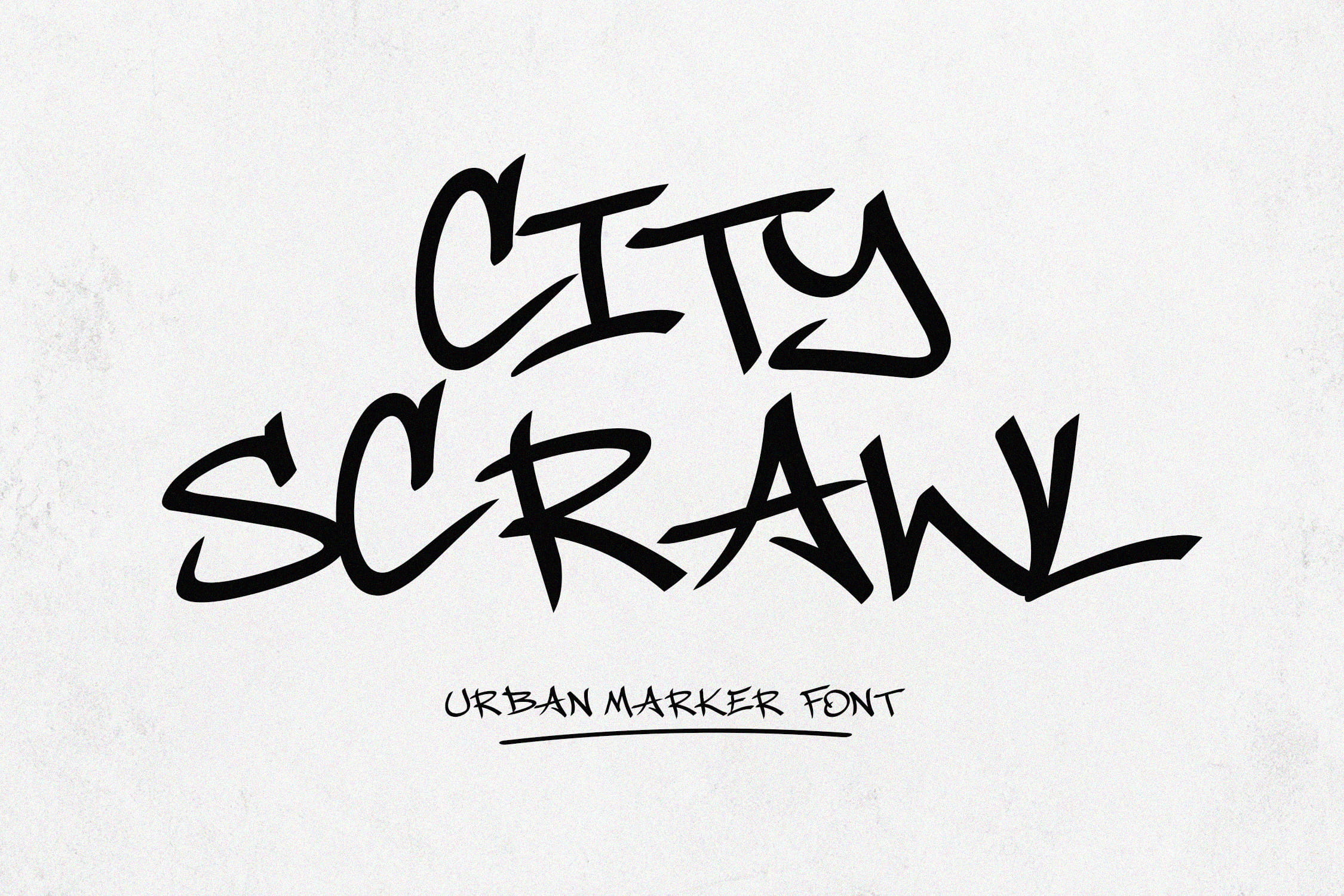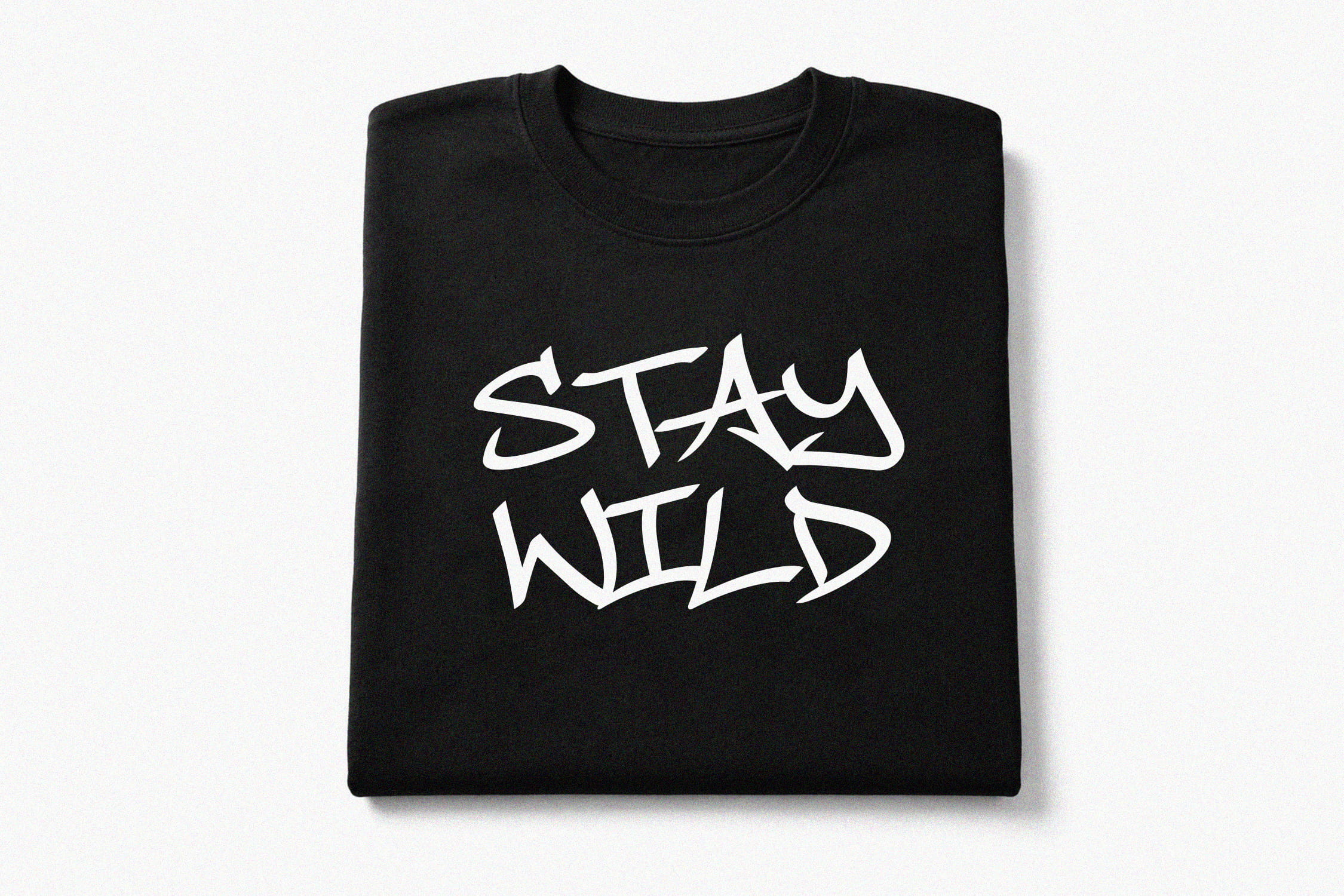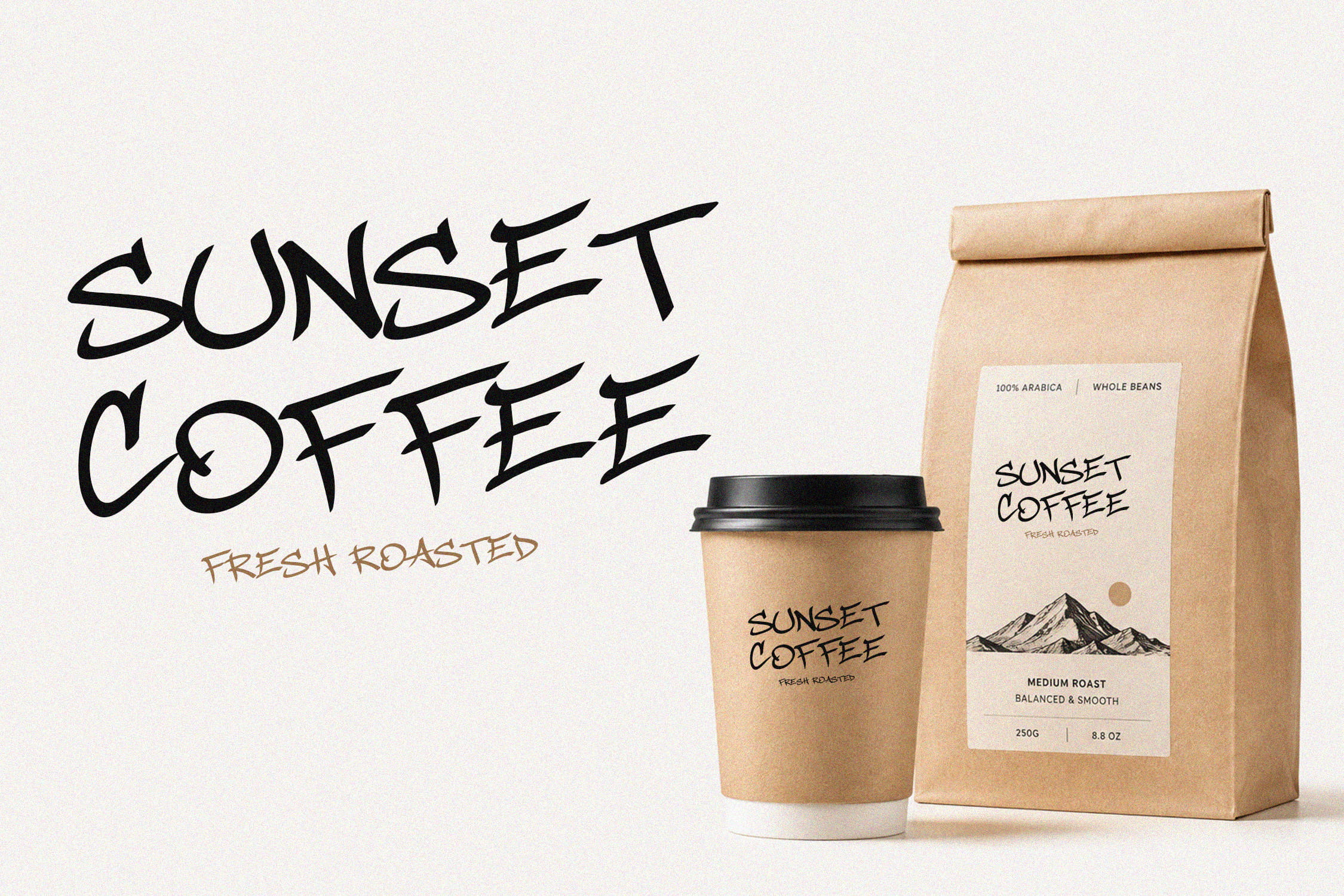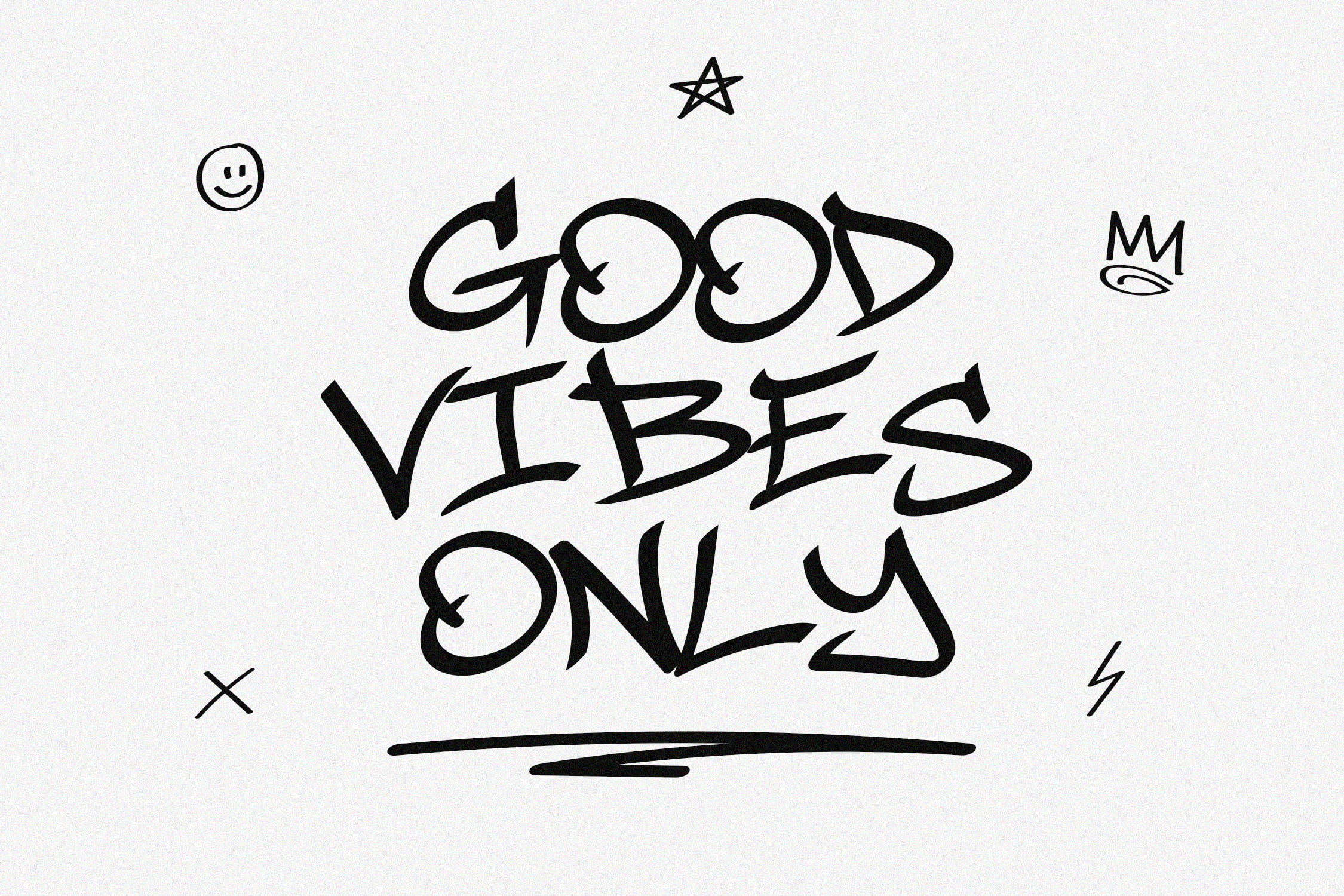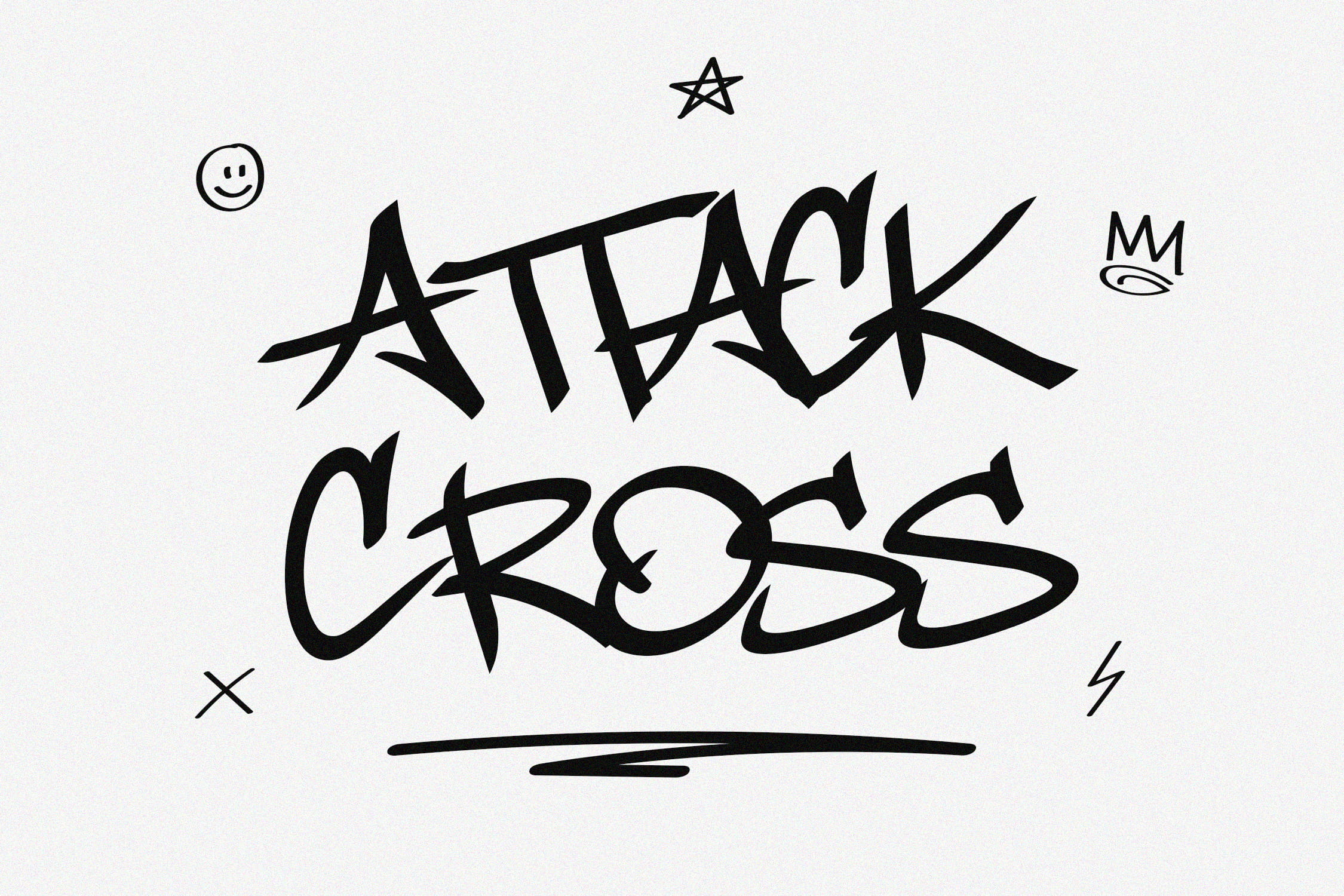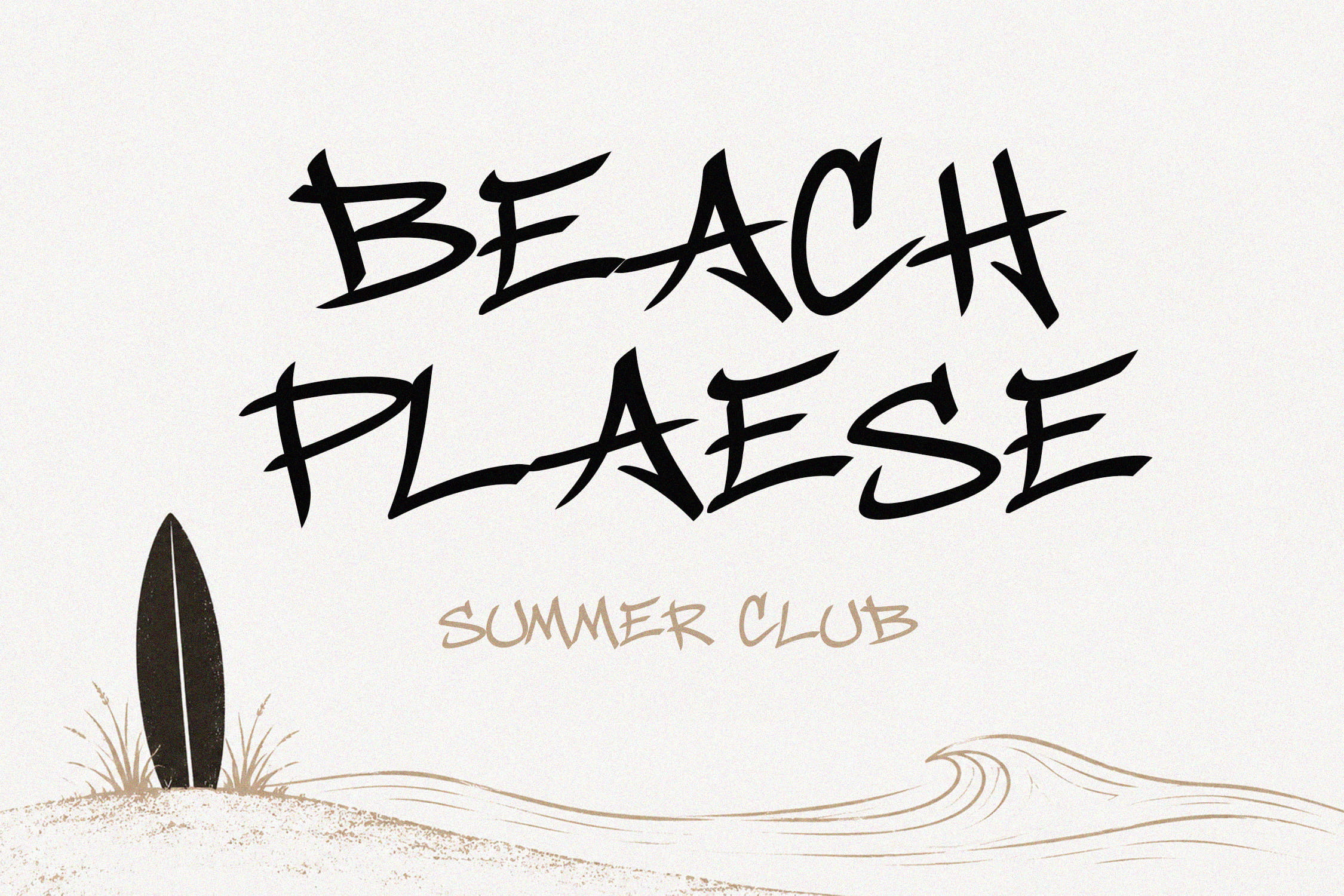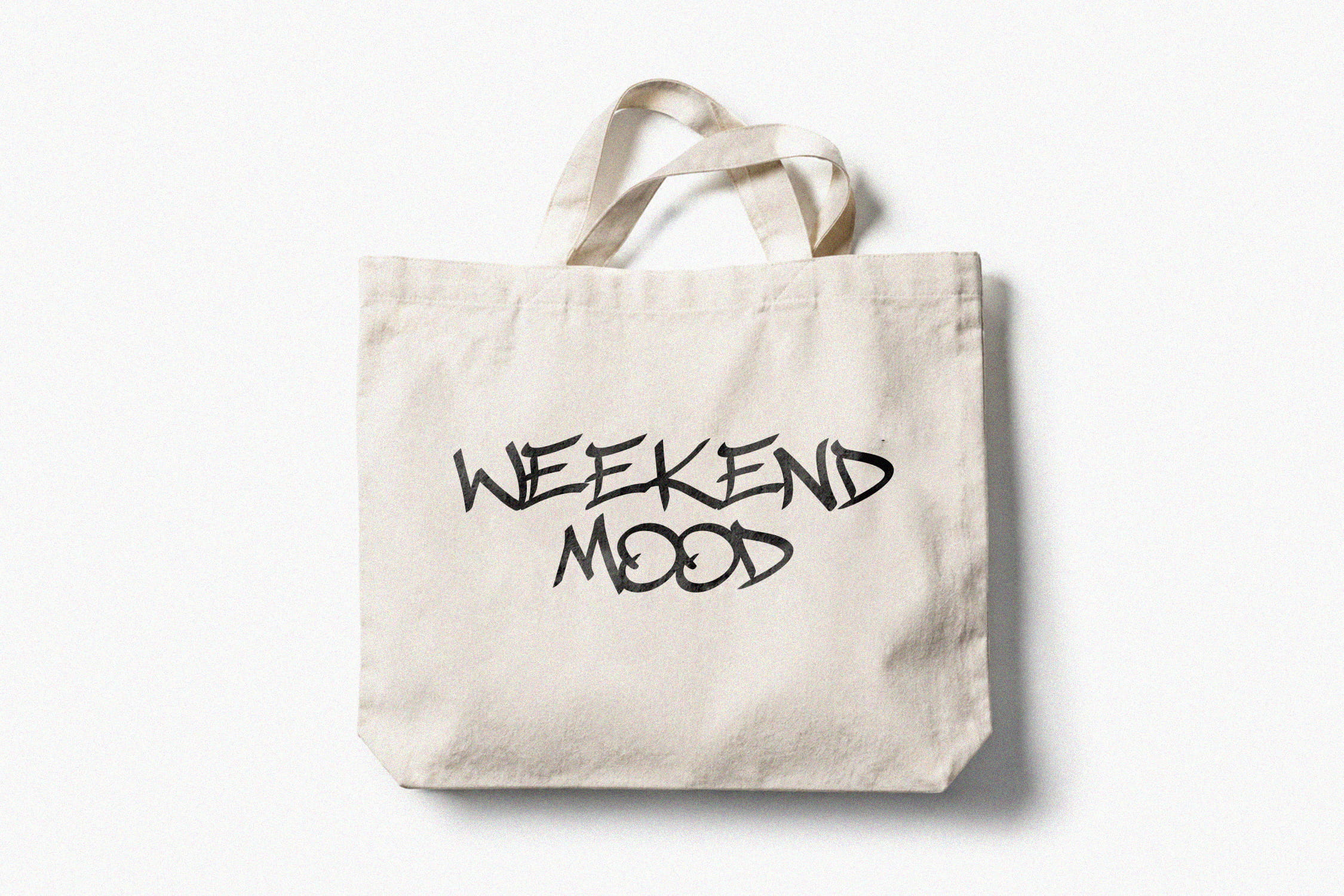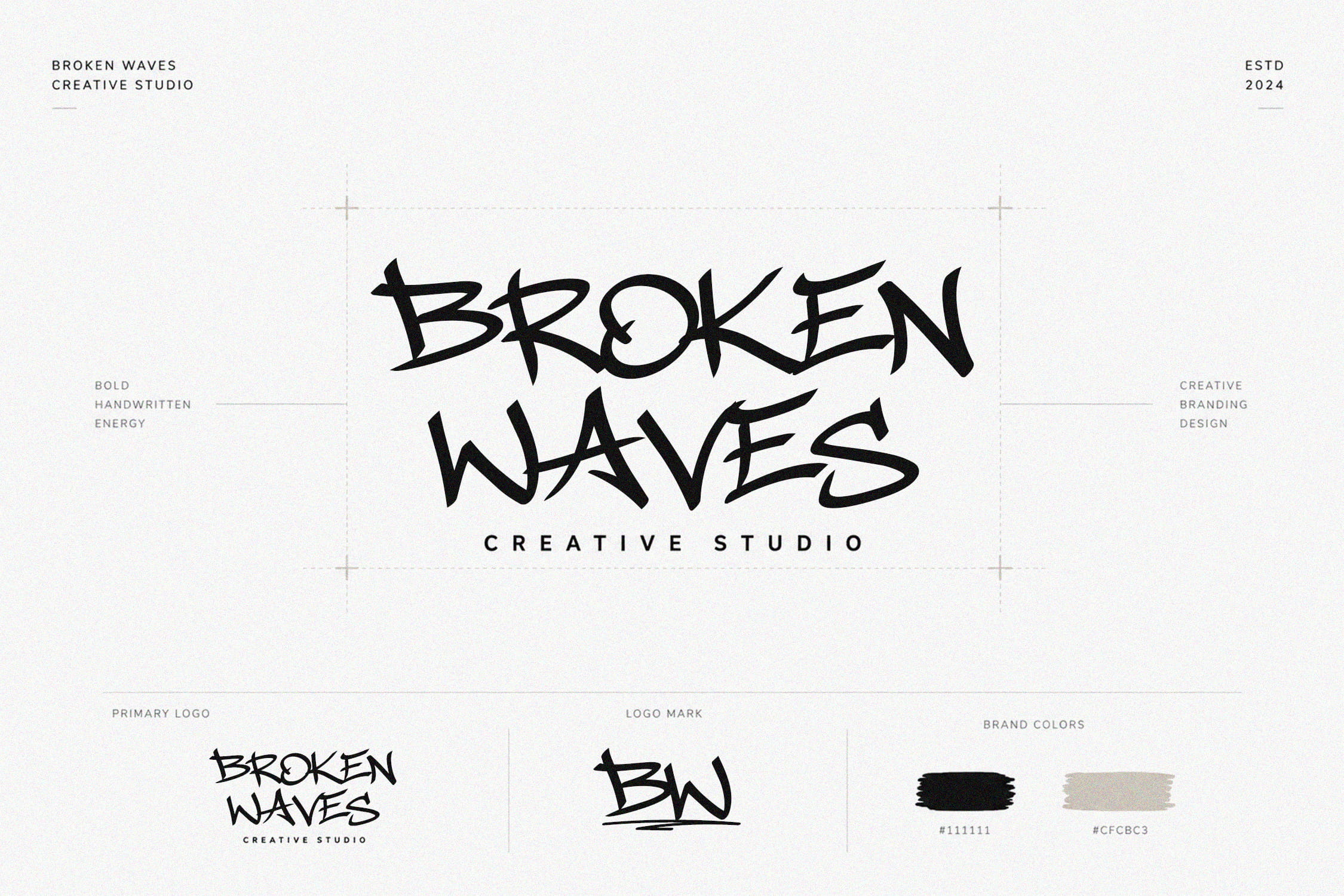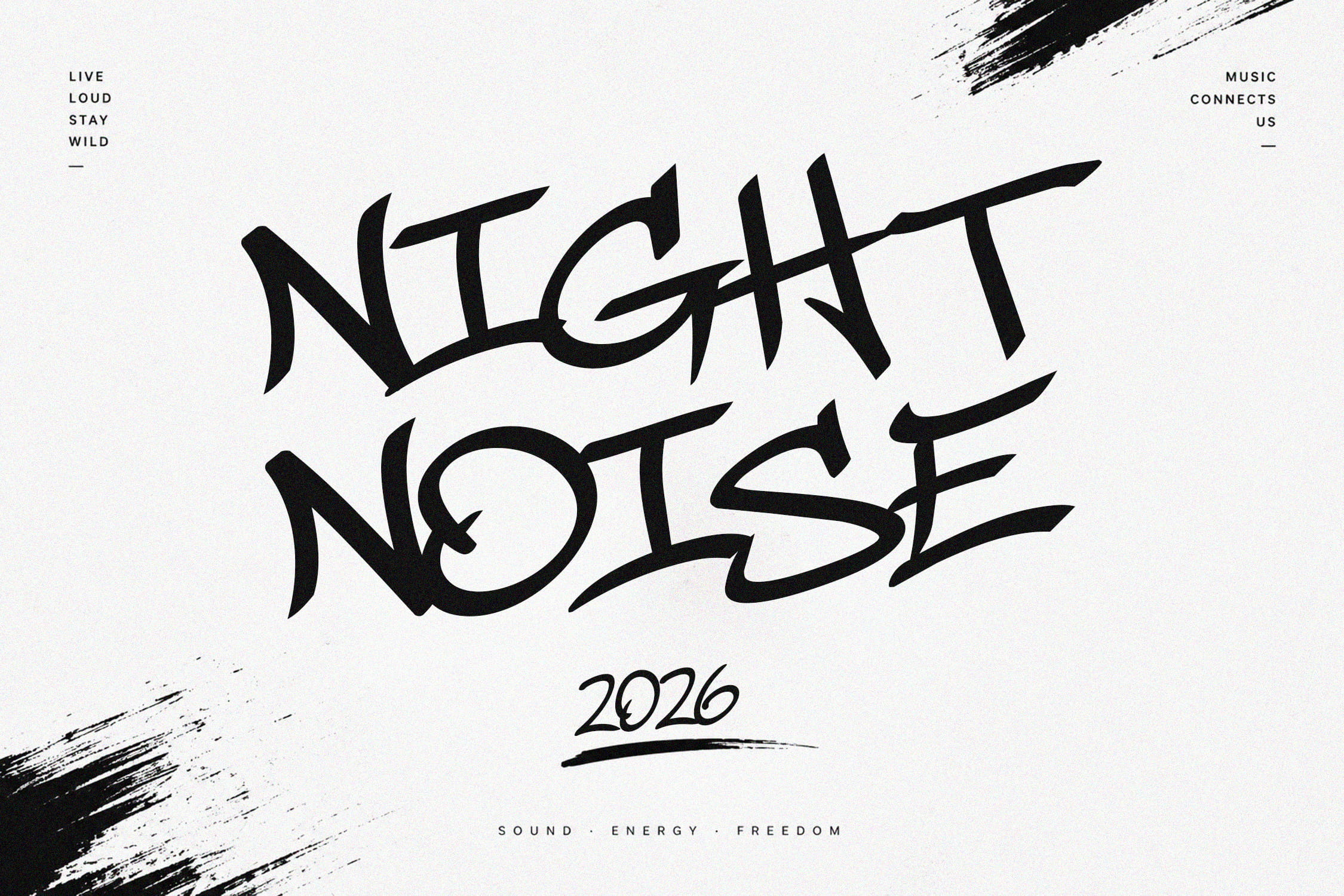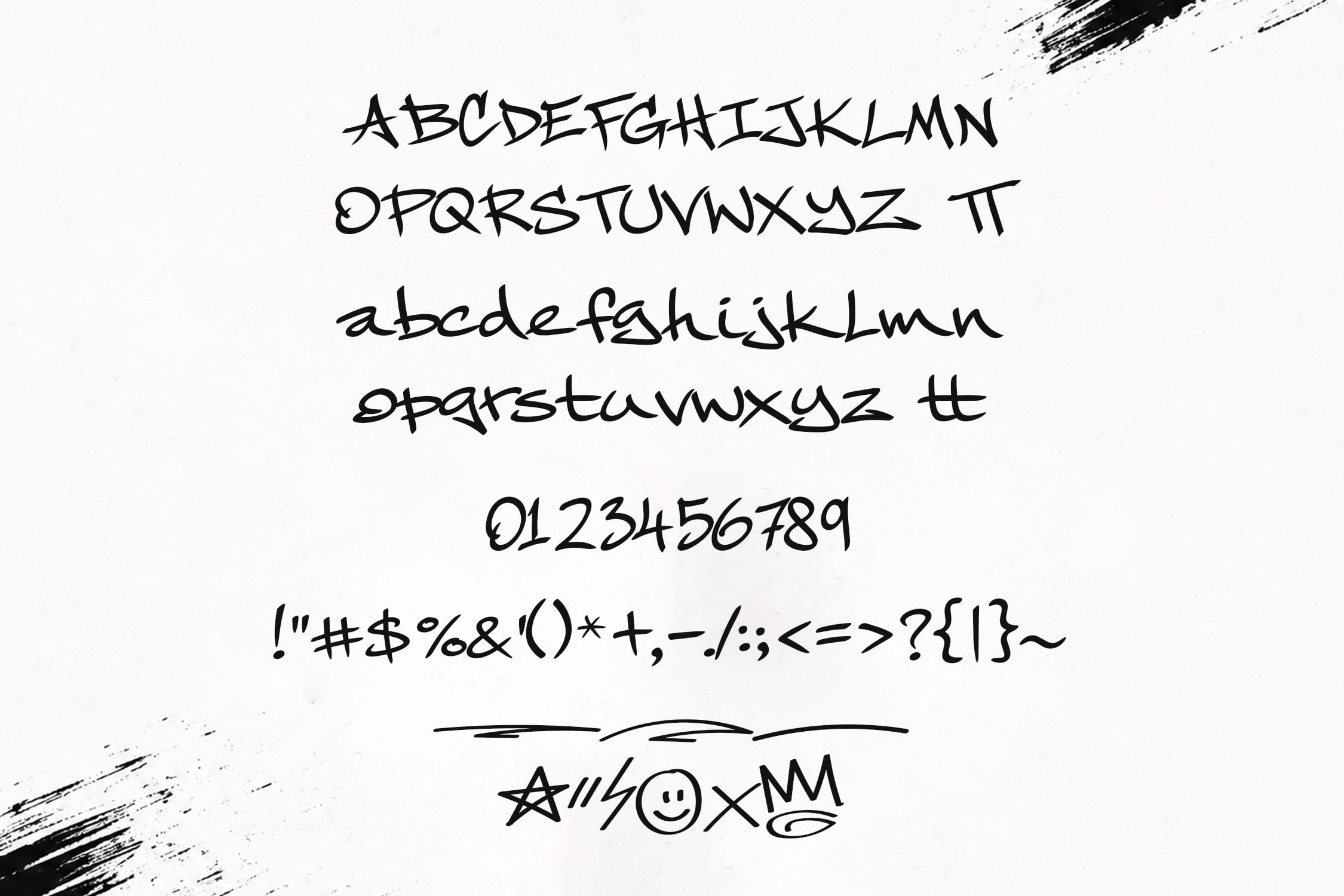
City Scrawl – Urban Marker Font
City Scrawl is a bold urban display font inspired by street culture, graffiti tags, and expressive marker lettering. Featuring sharp angles, dynamic strokes, and energetic letterforms, this font delivers an authentic street-inspired aesthetic that instantly grabs attention.
Designed to capture the raw energy of city life and underground creativity, City Scrawl is perfect for projects that demand a strong, rebellious, and modern urban identity.
Ideal for streetwear branding, music artwork, posters, merchandise, logos, packaging, social media graphics, and contemporary creative projects.
- Uppercase A–Z
- Lowercase a–z
- Numbers (0–9)
- Punctuation & Symbols
- Bonus Urban Doodles & Swashes
Key Features
- Authentic graffiti-inspired letterforms
- Bold urban marker style
- Sharp and energetic character shapes
- Handcrafted street culture aesthetic
- Eye-catching display typography
- Perfect for modern branding and apparel
- Suitable for both print and digital media
Perfect For
- Streetwear & fashion branding
- Music posters & album artwork
- Urban logo design
- Skateboard & surf branding
- Merchandise & apparel graphics
- Social media content
- Event posters & promotional materials
- Creative agency and lifestyle branding